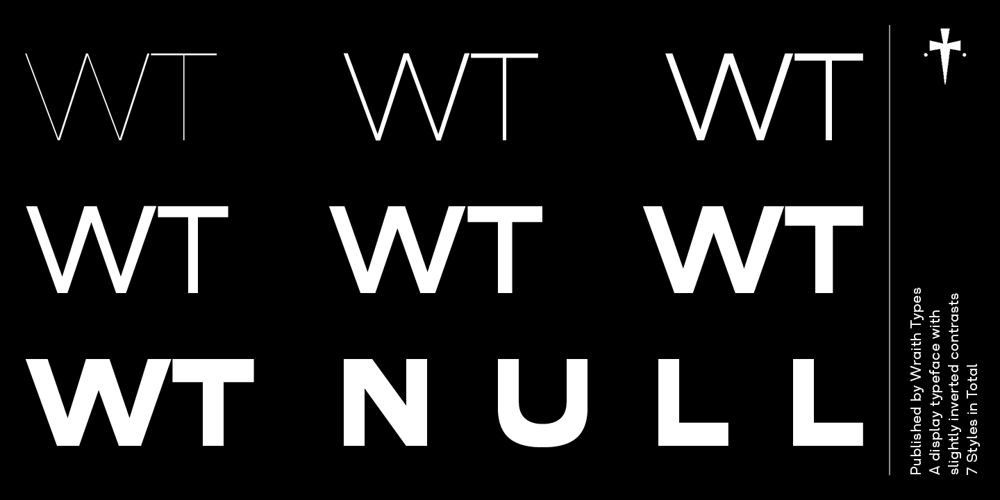
WT Null Font Family was designed by Guillaume Jean-Mairet and published by Wraith Types. WT Null contains 6 styles and family package options. Inspired by an 80’s Swiss book cover about mushrooms, WT Null is a modern display typeface with slightly inverted contrasts.Its mildly extended proportions coupled with the inverted contrast give it a subtle display potency, and a surprising capability to transition between being a quirky display face and a functional grotesque.